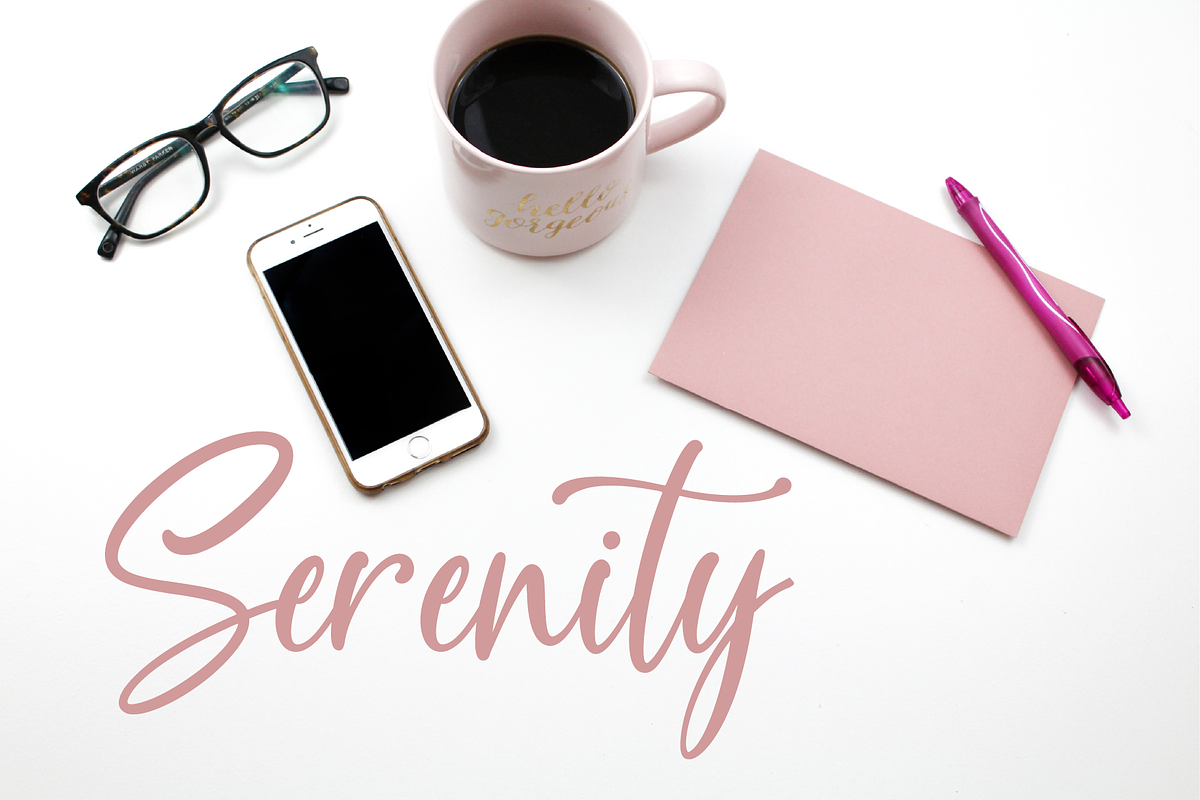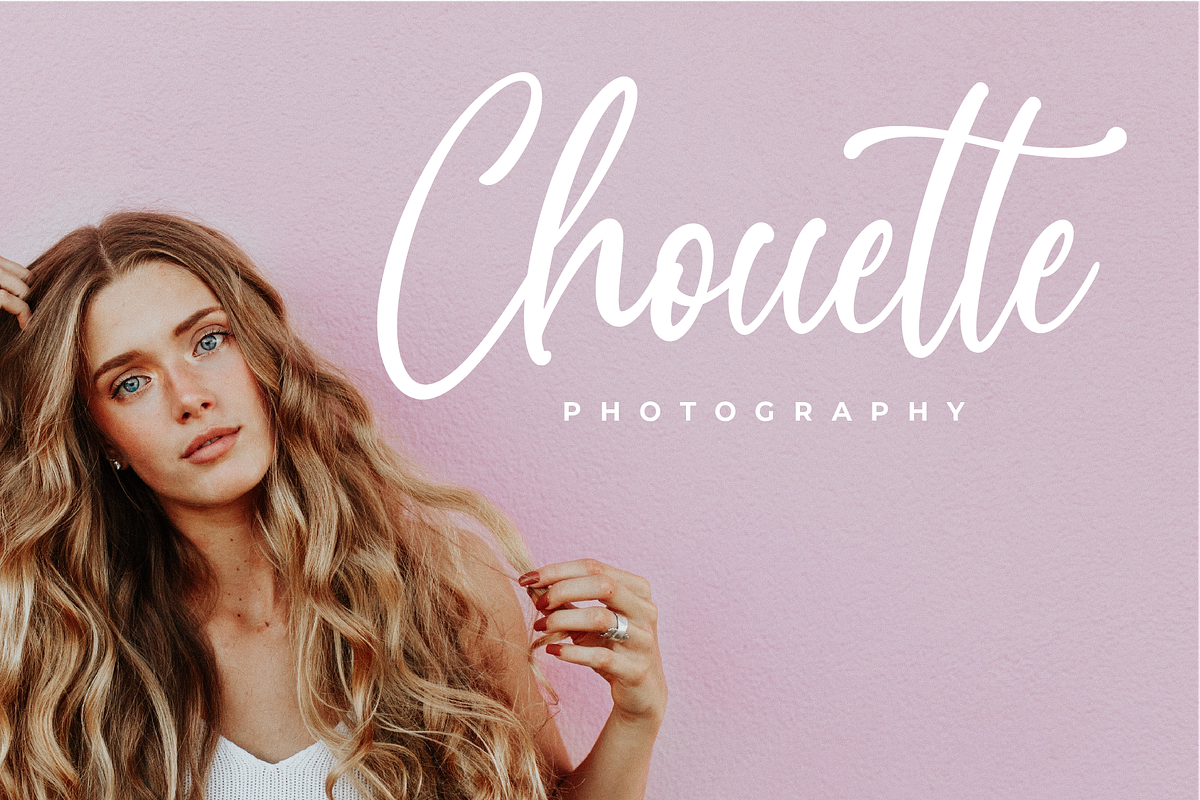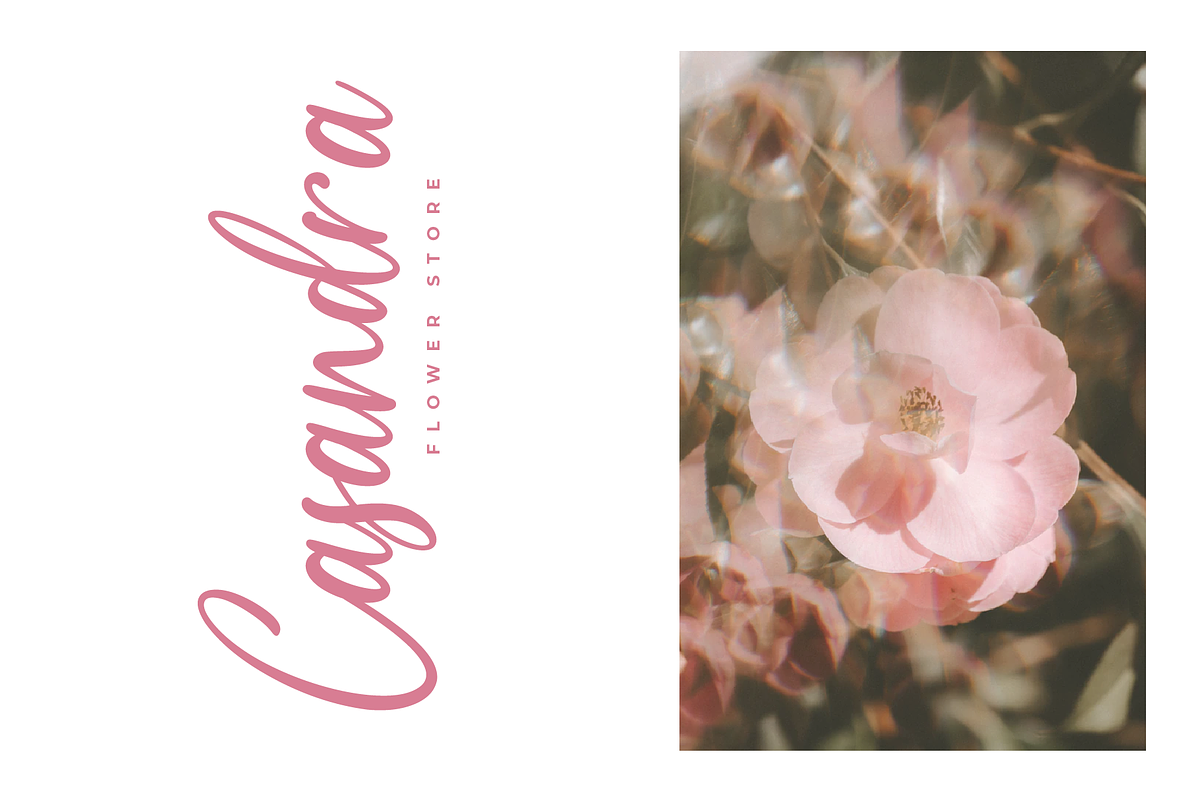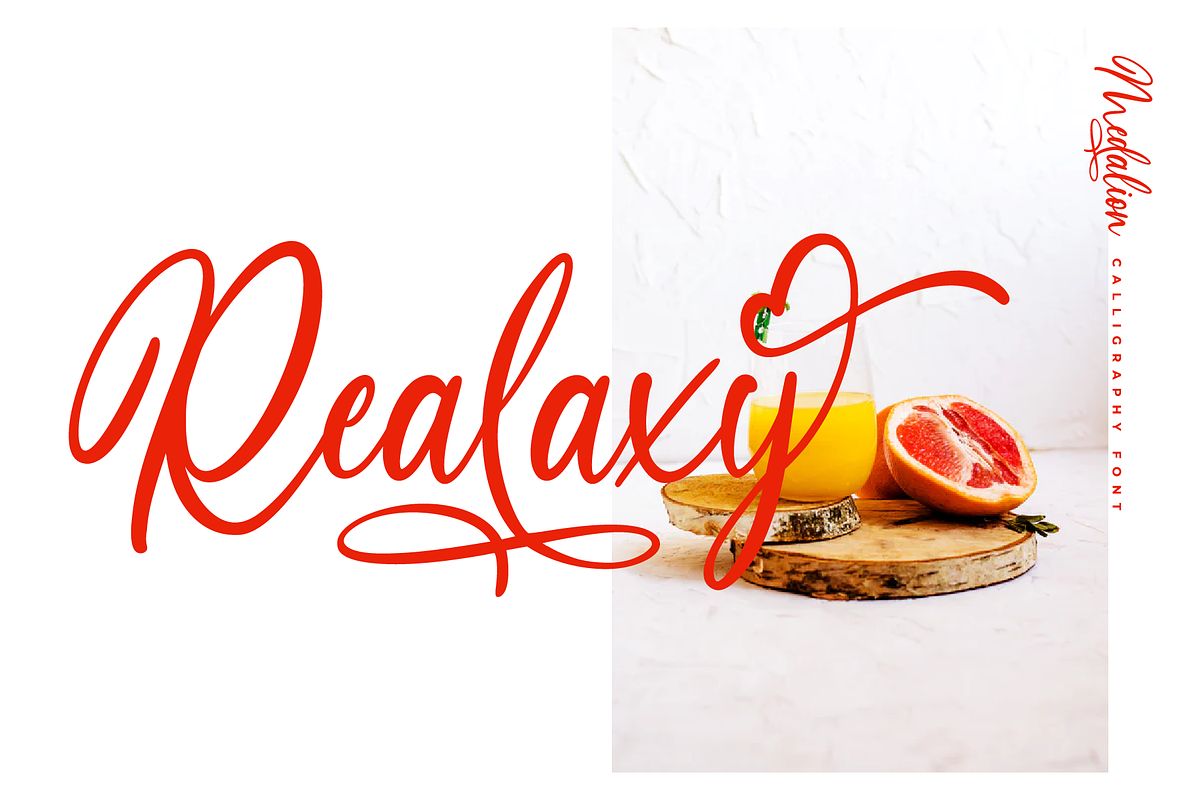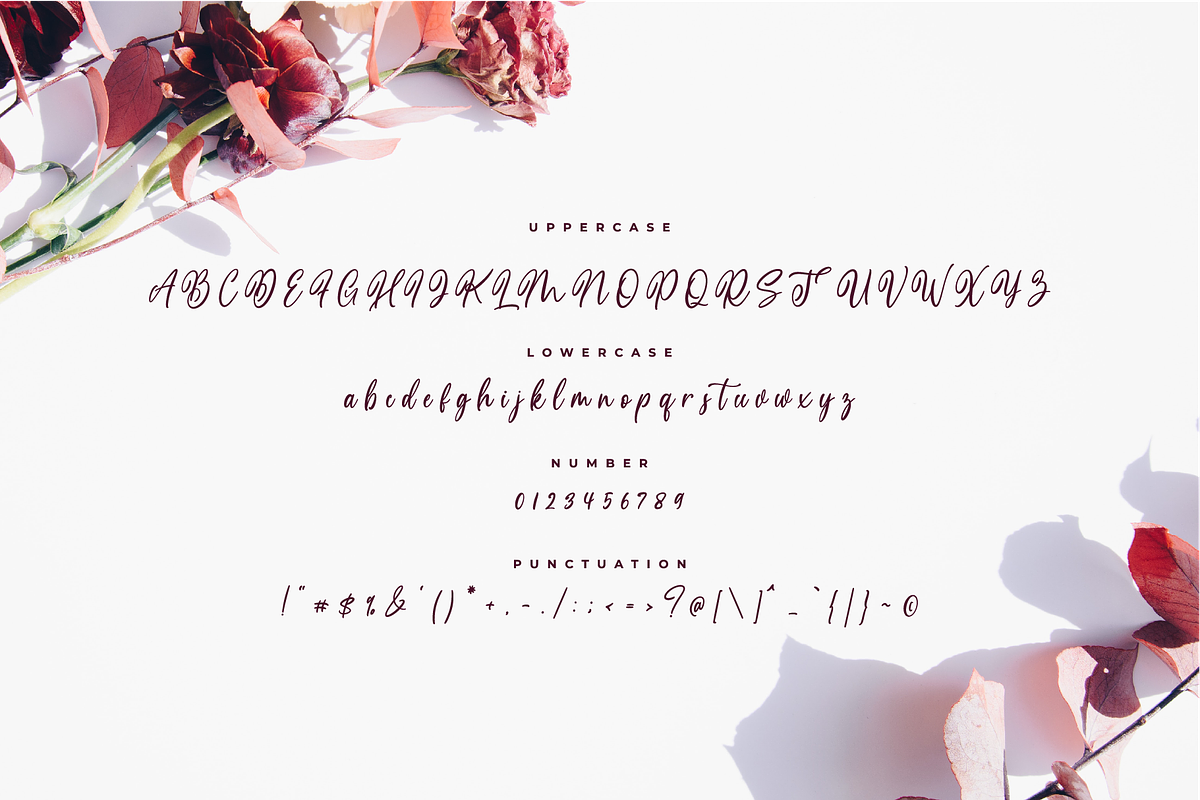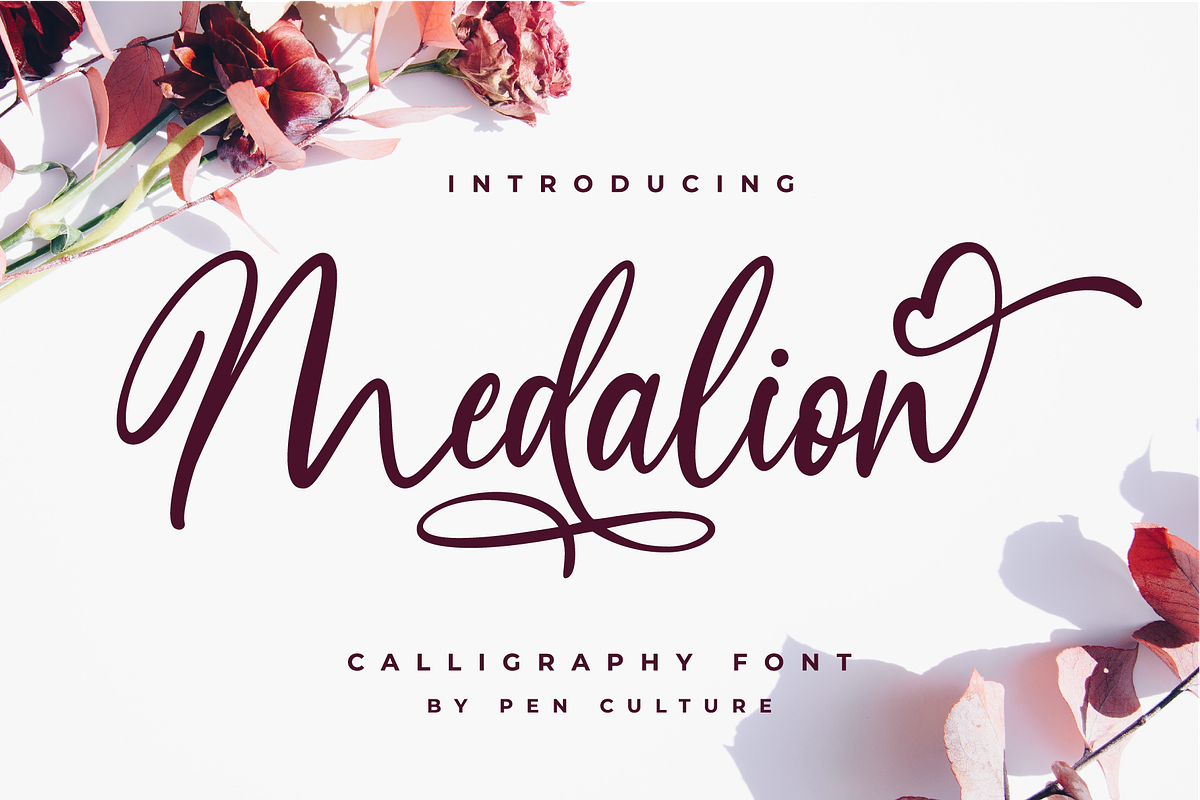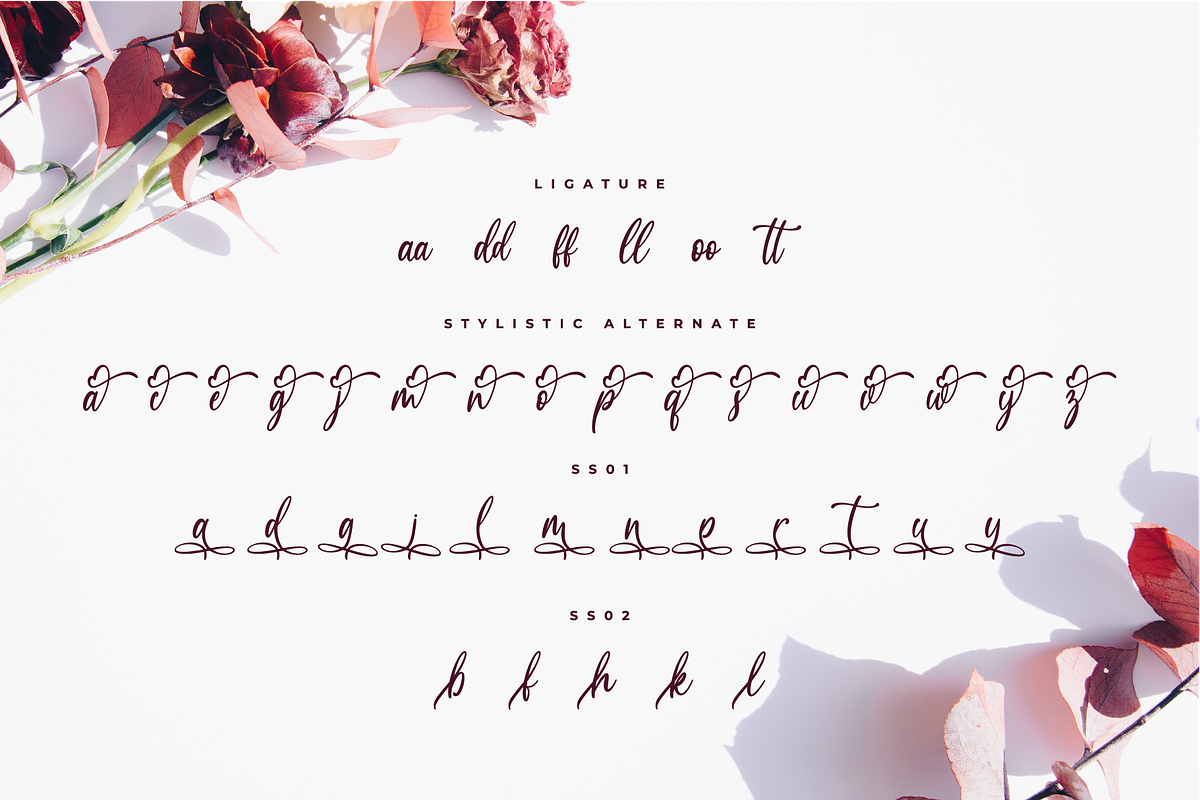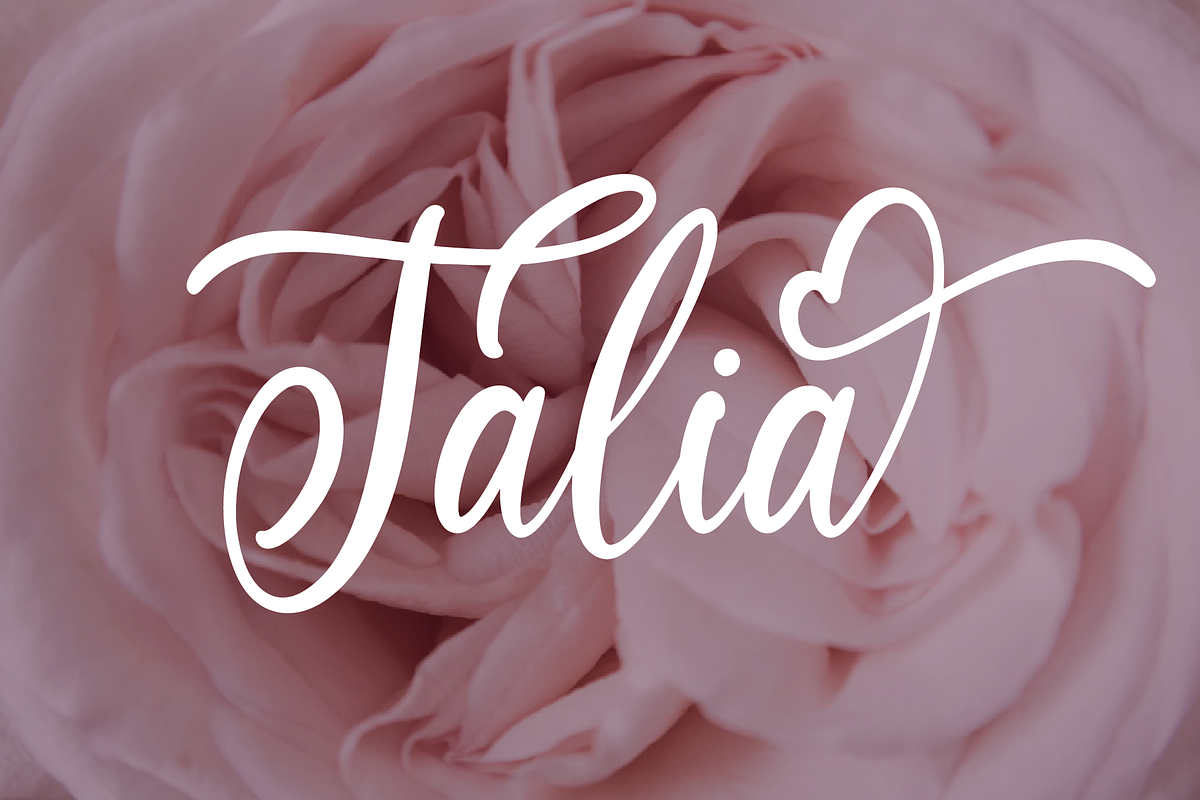
Medalion Calligraphy Font
Introducing the new Medalion. A modern calligraphy font with various interesting features. This font is perfect for for branding, wedding invites and cards, and many more.
Why Medalion Calligraphy Font is worth a look
Medalion Calligraphy Font by Pen Culture fits naturally into Branding, posters, packaging, typography.